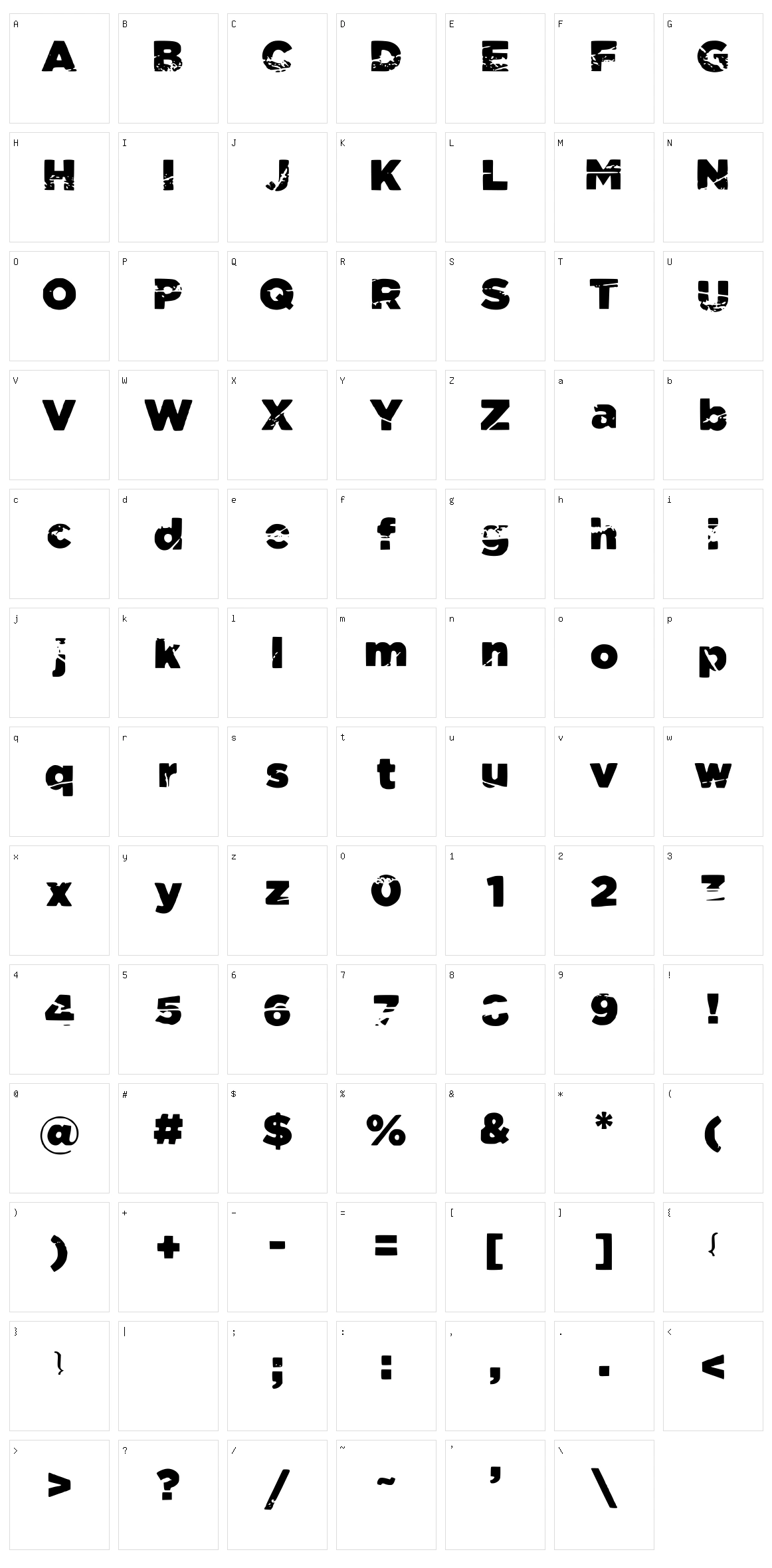
The free font Tomb Raider is carefully designed by Navin_Ad, showcasing a thoughtful balance of creativity and usability and falls under the Eroded font style. When you download the ZIP file, it contains only 24.93 KB of font files, making it lightweight and quick to download. Please review the license details below to understand permitted usage and distribution rights. If license information is not available, we recommend using this font for personal projects only or contacting the author directly for commercial usage permissions.